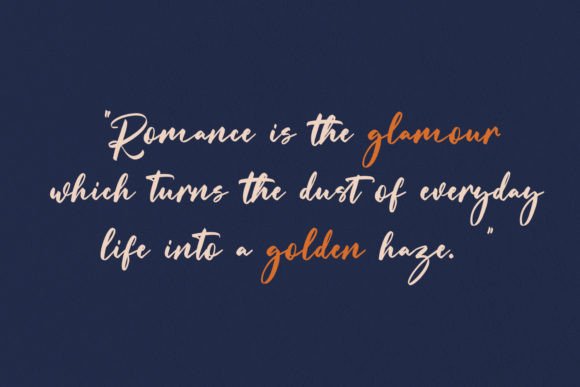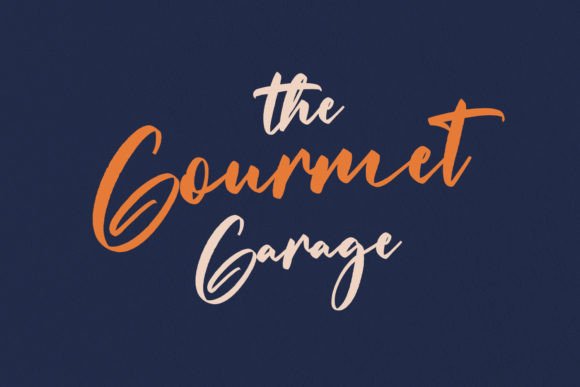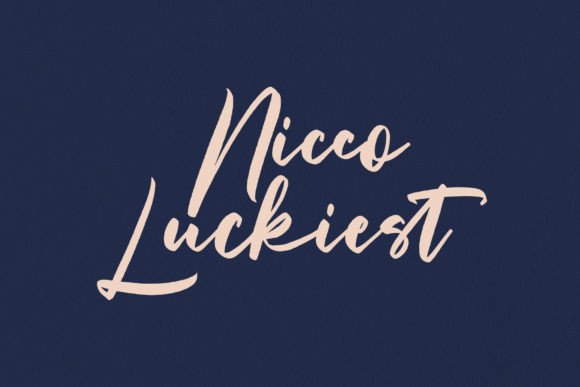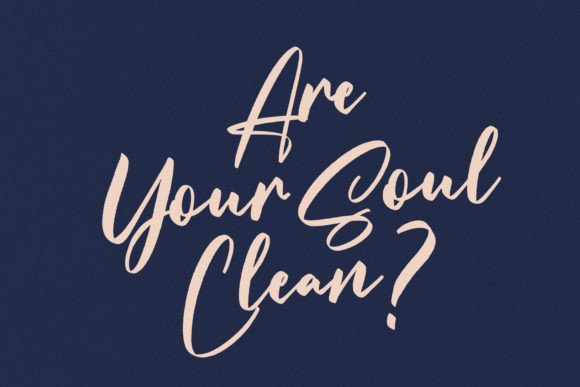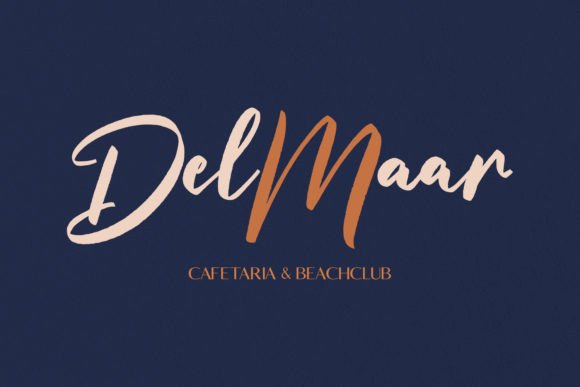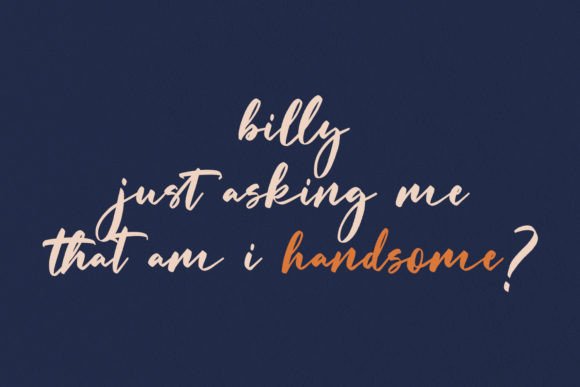
Introduction to Saffior Font
Saffior is a fancy handwritten font with bold brush contrast strokes, fun character with a bit of ligature, and alternates to give you extra creative work.
Saffior is good for logo design, social media, movie titles, book titles, short text, even long text, and good for your secondary text with a sans or serif Make a stunning work with Saffior font.